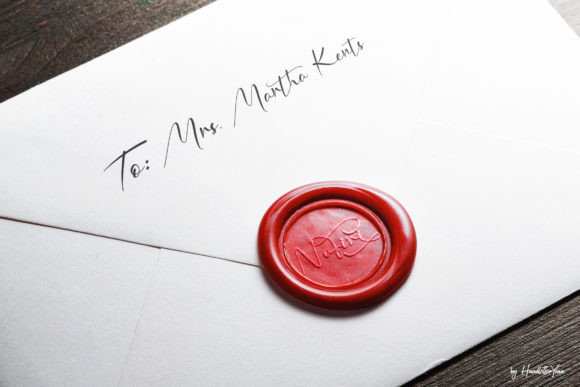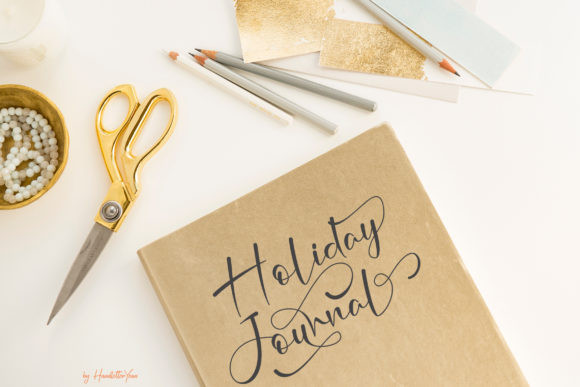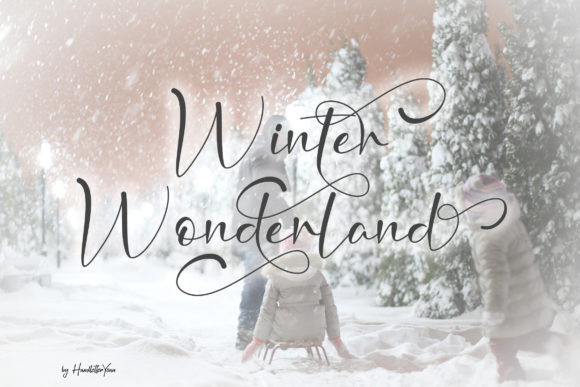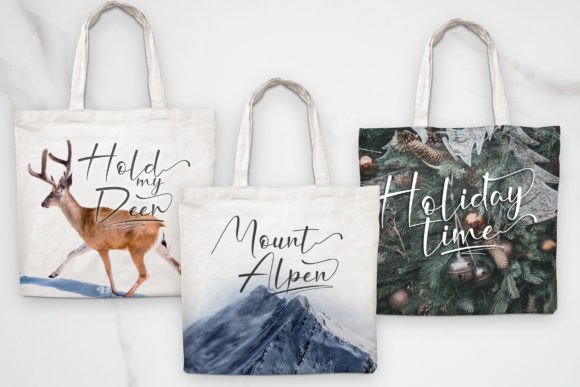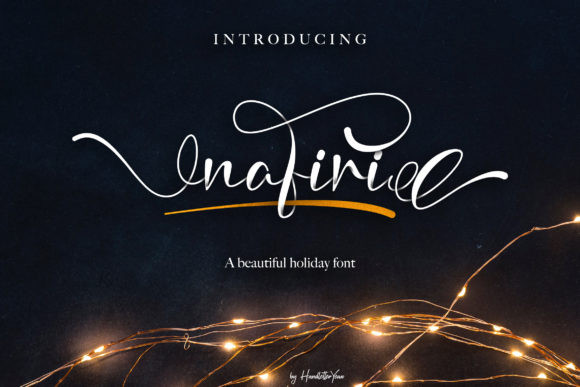
Nafiri Script Font
This is a romantic and modern calligraphy typeface with decorative characters and a dancing baseline! Introducing Nafiri Font. It’s designed and shared by yean.aguste. It’s a beautiful and attractive font that captures the essence of Christmas and Winter. It has a classy, elegant, and modern look which can be used for logos, branding, invitations, stationary, wedding designs, social media posts, and any other design in need of a handwritten touch.